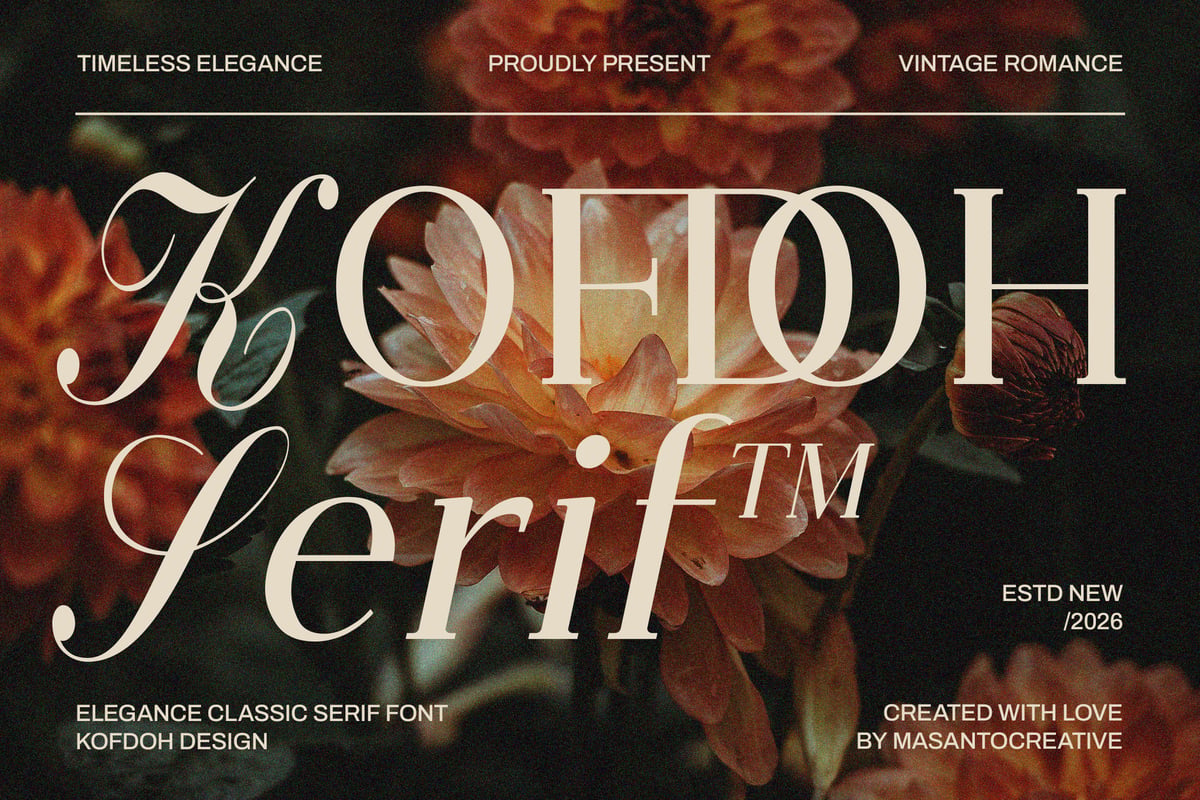
Kofdoh Elegant Serif Font Family
Kofdoh is the elegant serif typeface built for luxury brands, editorial layouts, and timeless design projects.
With its refined character set, stylish alternates, and professional ligatures, Kofdoh delivers smooth, sophisticated typography that feels equally at home in print and digital environments. Its classic structure meets modern sensibility — perfect for designers who want their work to feel premium without sacrificing versatility.
Each file includes both Regular and Italic styles, giving you expressive range across headlines, body copy, and display settings. Multilingual support ensures broad usability across international projects.
- Uppercase & Lowercase Characters
- Numbers & Punctuation
- Ligatures & Stylistic Alternates
- Discretionary Ligatures
- Multilingual Support
- Regular & Italic Styles